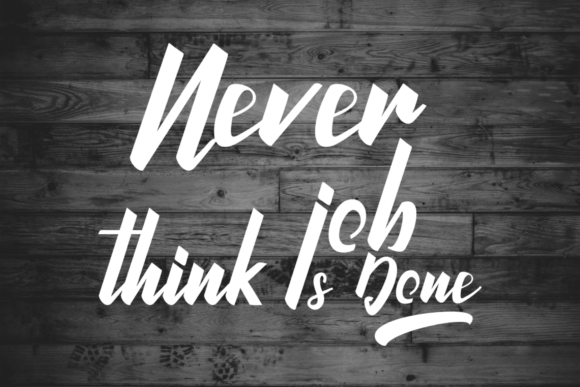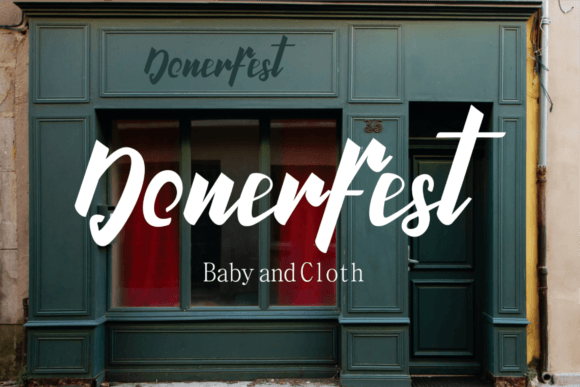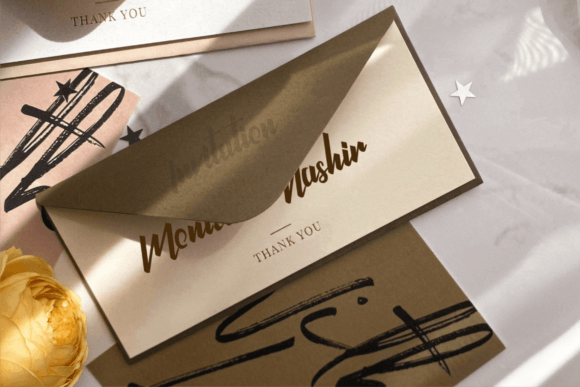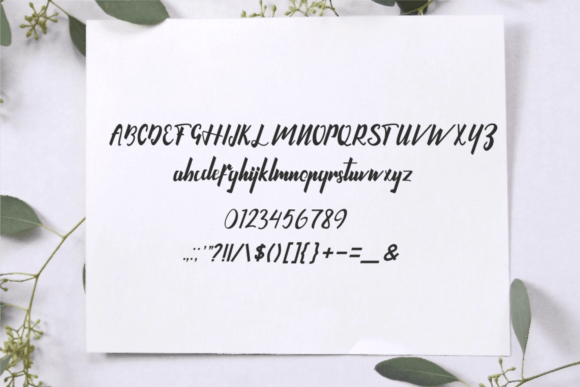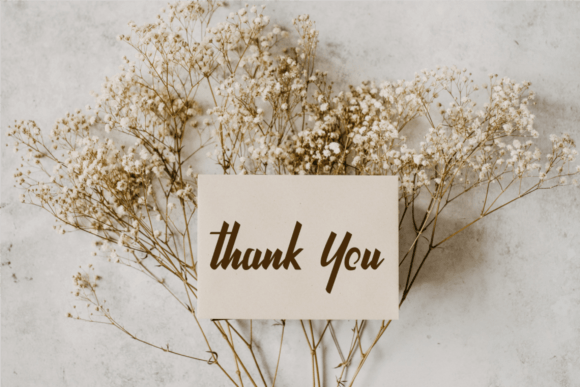
Introduction to Lanijura Font
As a designer, there’s nothing quite like the thrill of bringing a creative project to life. You’re brainstorming ideas, experimenting with different styles, and searching for the perfect font to tie everything together. That’s where the Lanijura Font comes in – a bold and authentic handwritten font that’s sure to elevate your branding project to the next level.
Imagine you’re working on a logo for an e-sport team, and you want to create a unique and eye-catching design. With the Lanijura Font, you can achieve just that – its high-quality, handwritten look is perfect for adding a personal touch to your project. Plus, it’s free to download, making it an excellent design resource for designers on a budget.
Whether you’re working on a logo, t-shirt printing, or any other creative project, the Lanijura Font is a valuable addition to your design toolkit. Its versatility and authenticity make it a standout choice for any branding project, and its transparent background ensures seamless integration with your design.
Key Features of Lanijura Font
- Unique, modern design with a transparent background
- Includes a comprehensive character set with over 500 glyphs
- Supports a wide range of languages, including Latin, Cyrillic, and Greek
- Designed with a high resolution of 1024 x 1024 pixels for crisp and clear display
Honest Review: Lanijura Font
As a designer, I’ve had my fair share of fonts, but the Lanijura Font caught my attention. This free download has become a go-to design resource for my creative projects.
- What works well: ✨ The Lanijura Font offers a high-quality, modern design that’s perfect for headings and titles. The font’s clean lines and sleek appearance make it ideal for projects that require a touch of sophistication.
- What works well: ✨ The font is incredibly versatile and can be used in various contexts, from digital to print media. Its ability to adapt to different backgrounds, including a transparent background, is a definite plus.
However, I do have a few concerns. ⚠️ The font might be a bit too minimalist for some projects, which could limit its use in certain design contexts. Additionally, the font family is relatively small, which may not be suitable for projects that require a large font size.
Overall, I’m quite impressed with the Lanijura Font. While it may have some limitations, its high-quality design and versatility make it a valuable addition to any designer’s toolkit.
Design Tips
For the best results, use the Lanijura Font on a transparent background to create a high-quality design. You can also experiment with different font sizes and colors to enhance the visual appeal of your project.
The Lanijura Font is ideal for creative projects, such as logo design, branding, and marketing materials. It’s also a great resource for designers looking for a high-quality, free font to use in their designs.